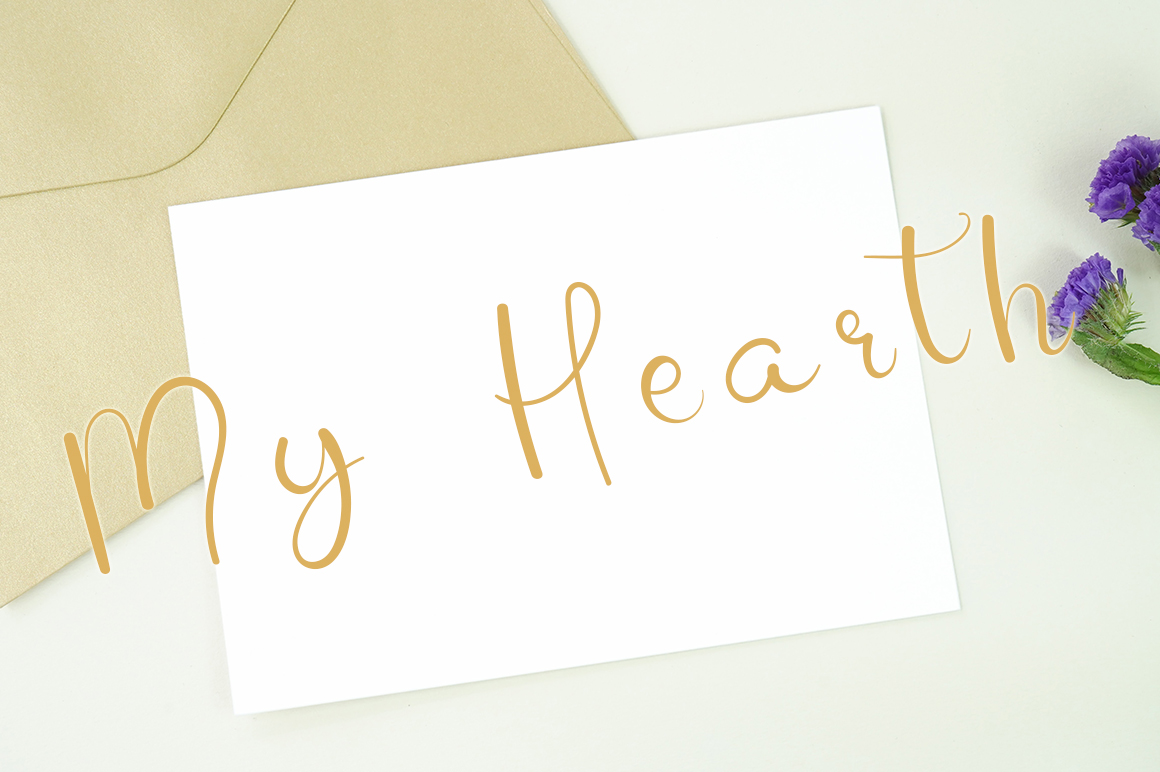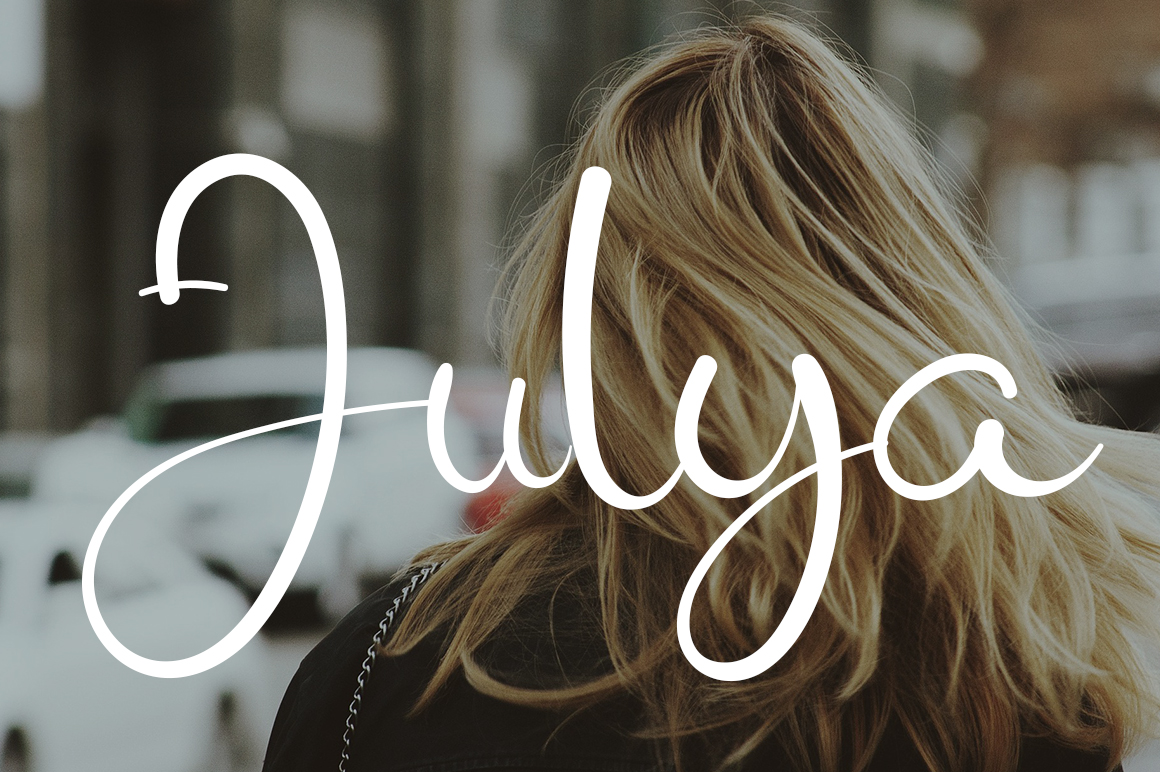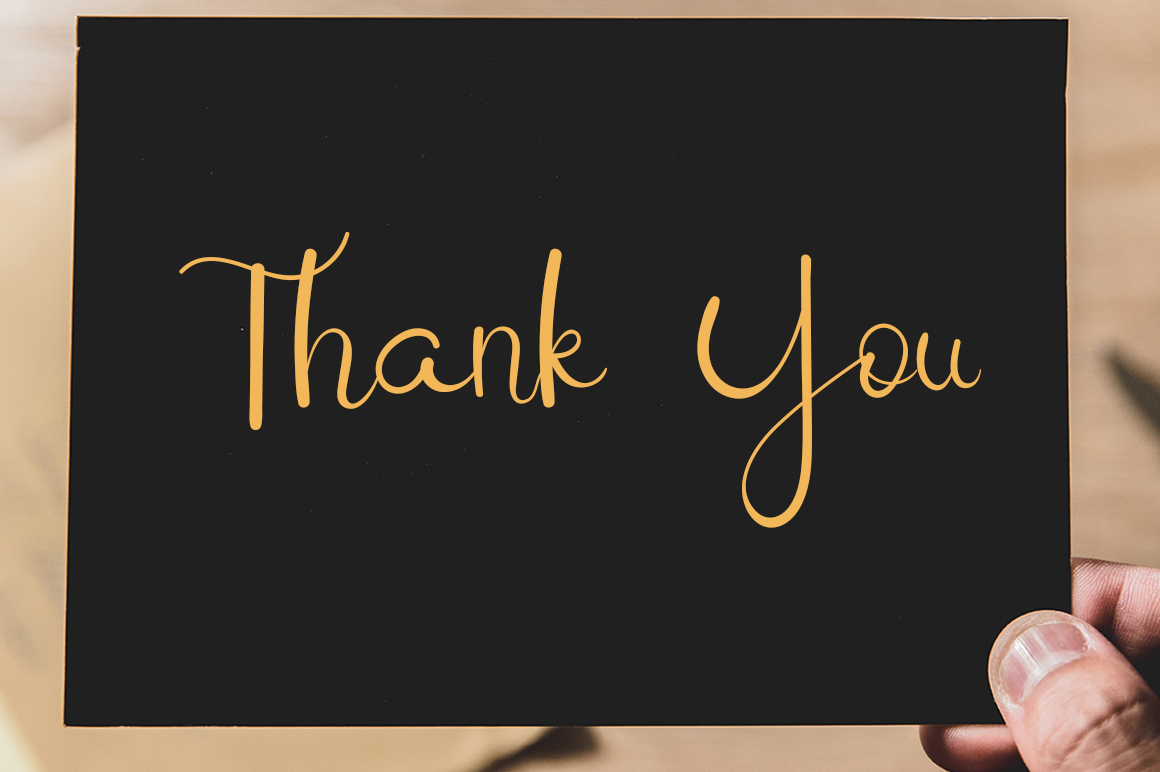
Winter Autography Script Font
It’s a beautiful and refined script font. It has a classy, elegant and modern look that can be used for logos, branding, invitations, stationery, wedding designs, social media posts, and much more